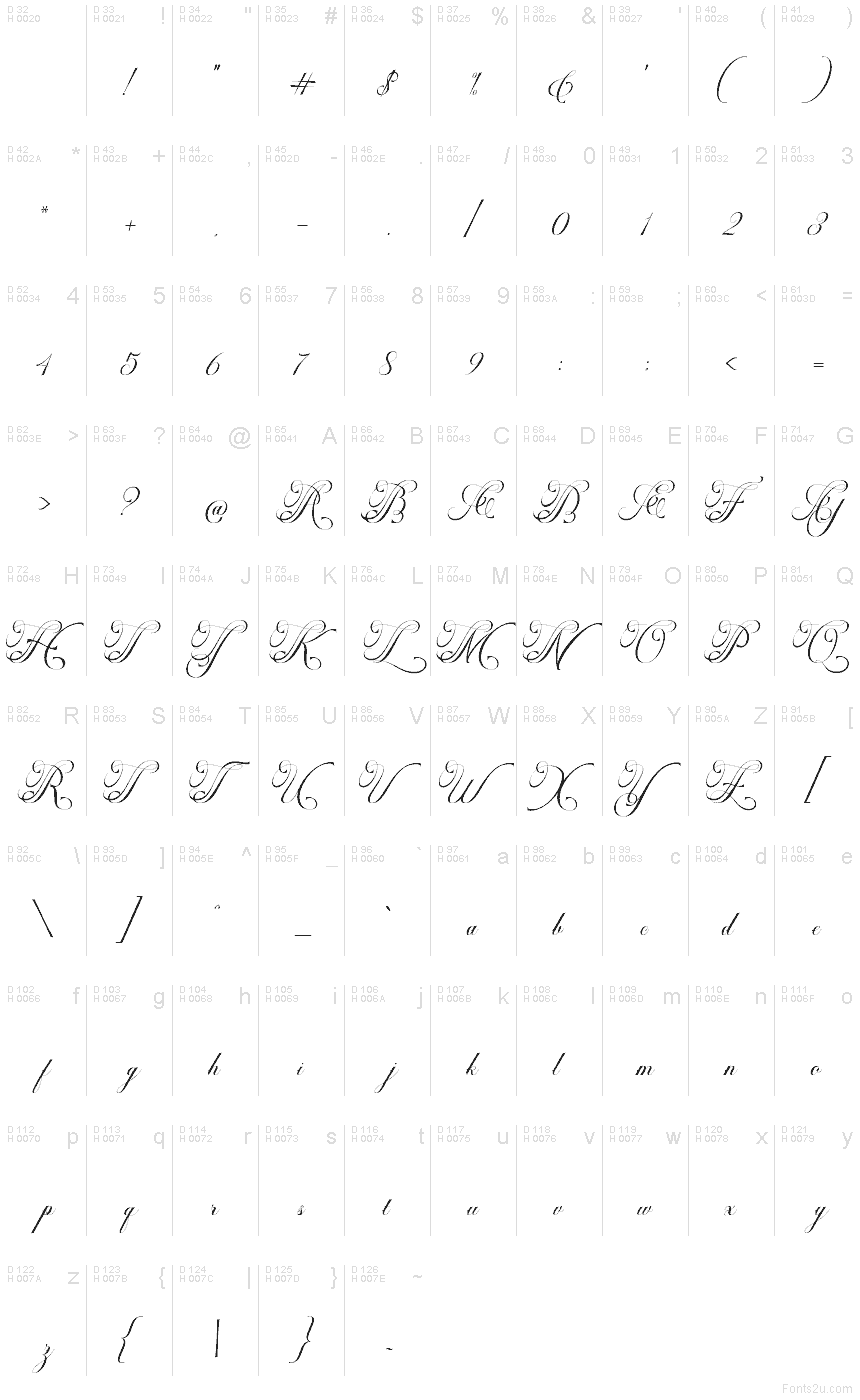
CardilanTatto
Cardilan Tatto font by Romi Rahmadi is a calligraphy wonder designed to engage. This script typeface has elegant and expressive letters with ornamental flowing lines that keep readers enchanted. It is an impressive work of art where its traditional influence can be appreciated through various letter curves and stylings.
A beautiful choice for greeting cards or projects related to parties, covers, magazines, or books. Other great use cases are tattoos, store names, invitations, places/restaurant signs and menu items design.